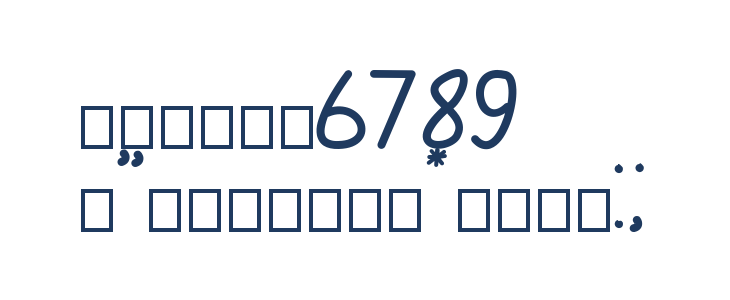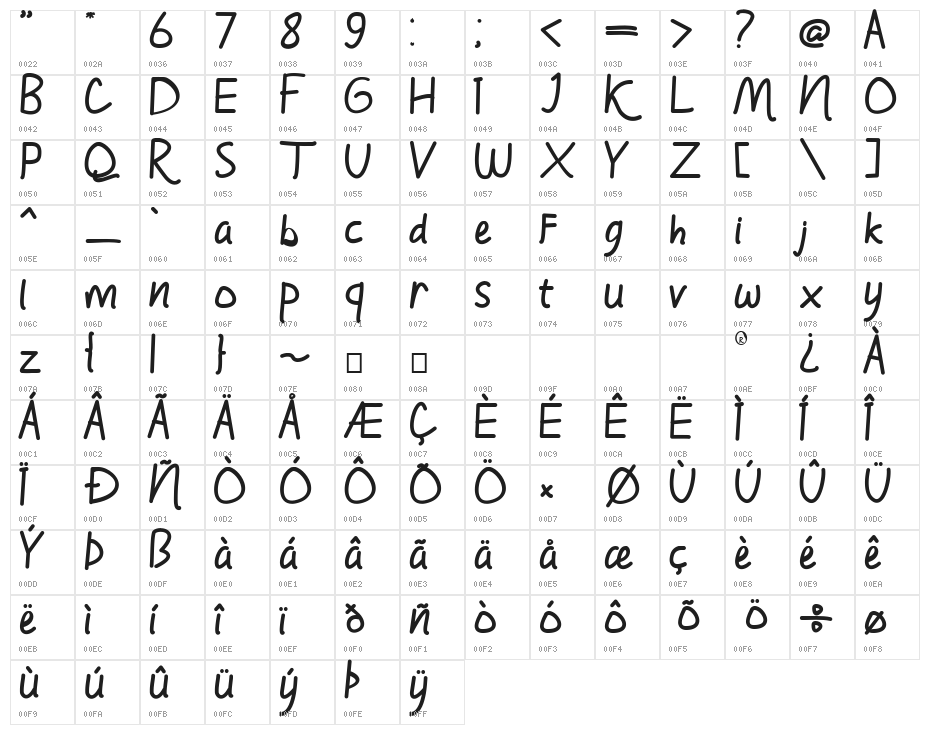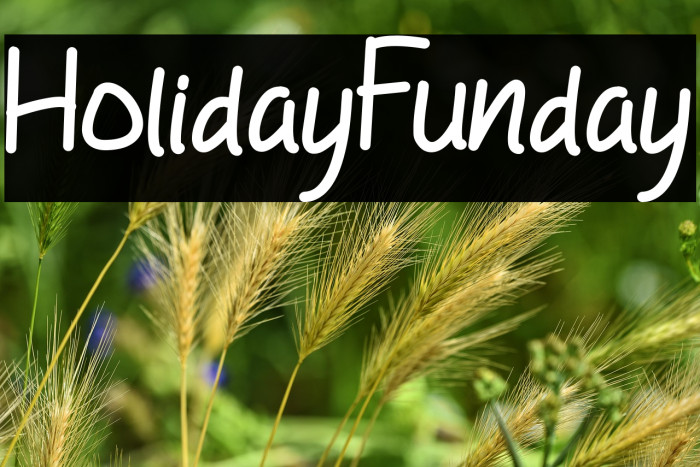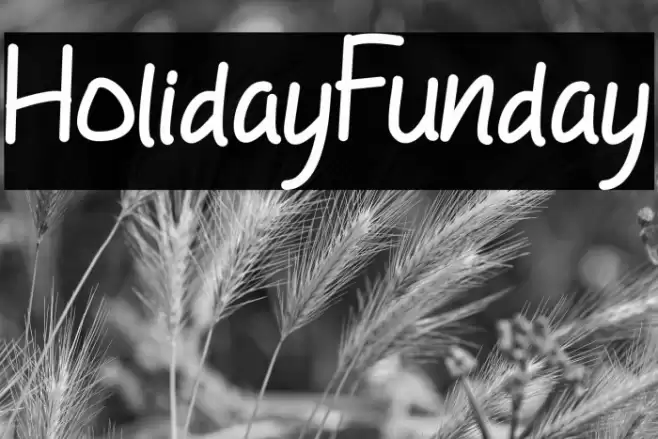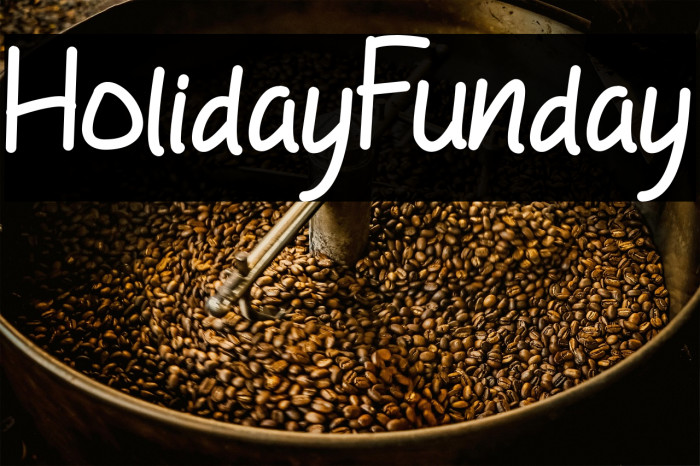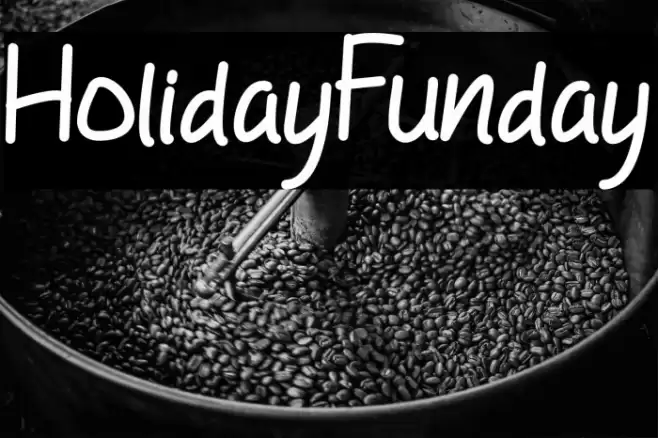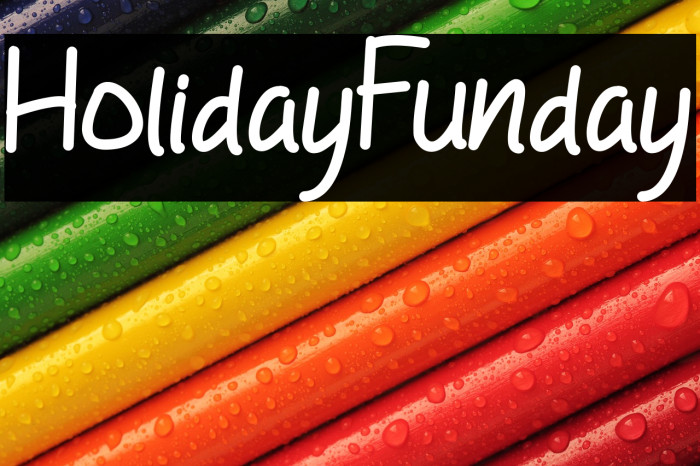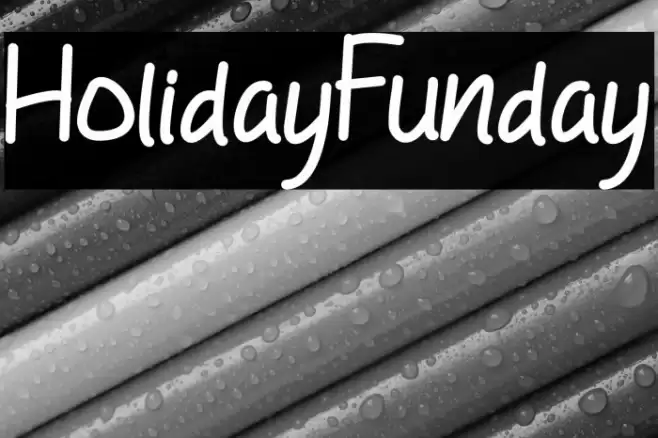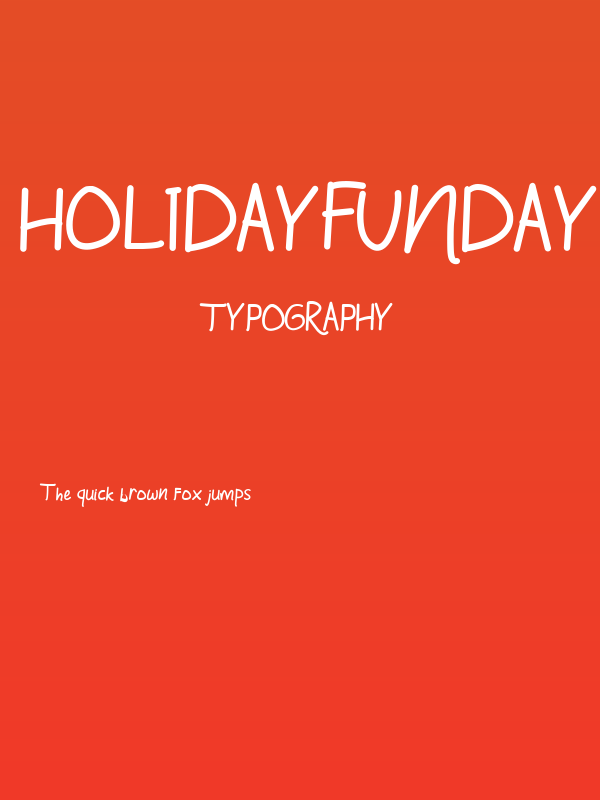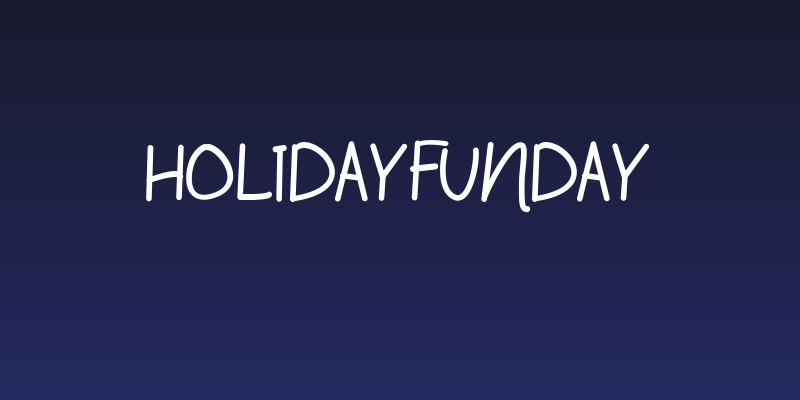
HolidayFunday Font
HolidayFunday Description
This playful and whimsical font features a handwritten style with a casual, friendly appearance. The characters are slightly rounded with a consistent stroke width, giving it a uniform look while maintaining a sense of fun. The uppercase letters are bold and prominent, while the lowercase letters have a more relaxed and informal feel. The numerals are clear and easy to read, matching the overall style of the alphabet. Special characters are included, maintaining the same playful aesthetic. This font is perfect for projects that require a lighthearted and approachable tone.
Overall StylePlayful
Use CaseHeadlines, Logos, Invitations
Proposed ProjectsIdeal for children's books, greeting cards, playful branding, and casual invitations.